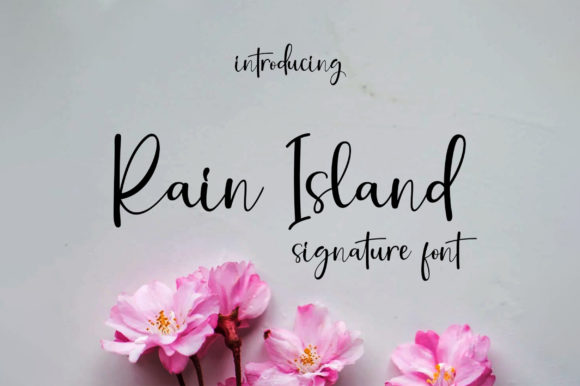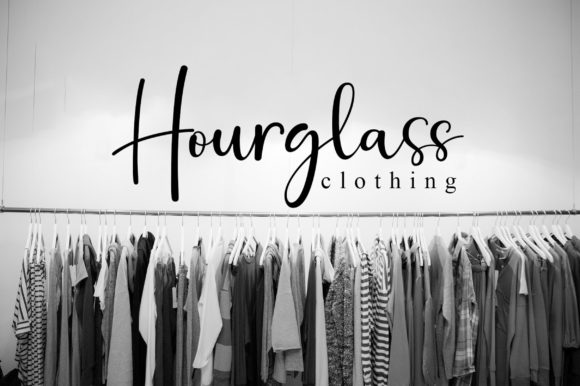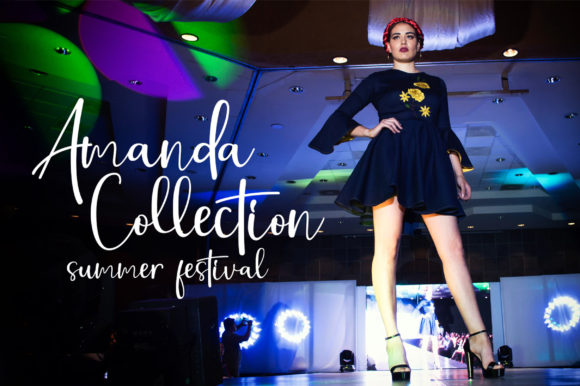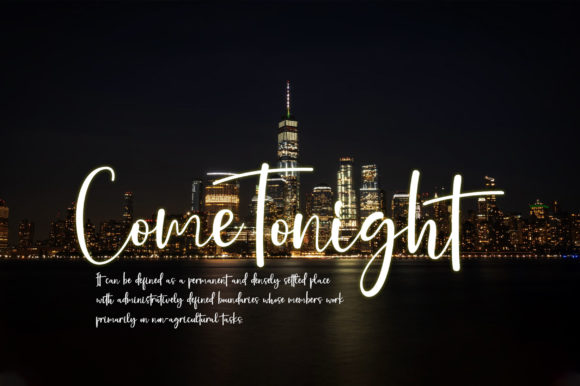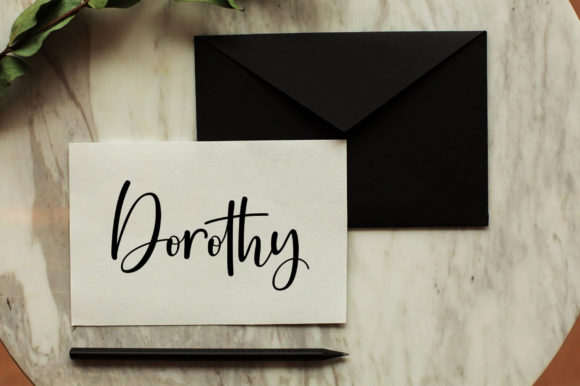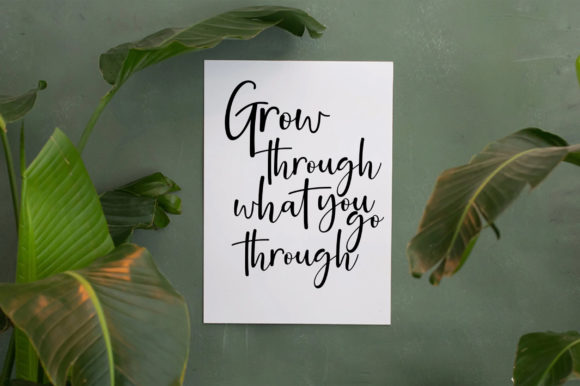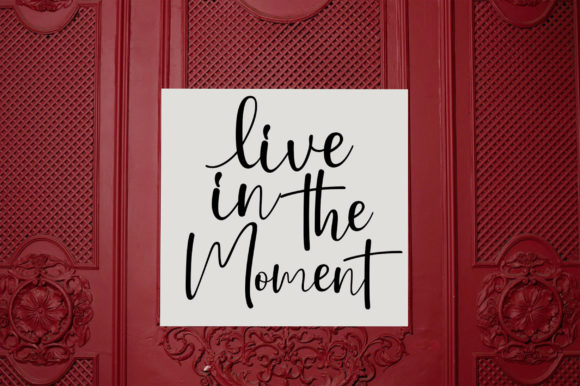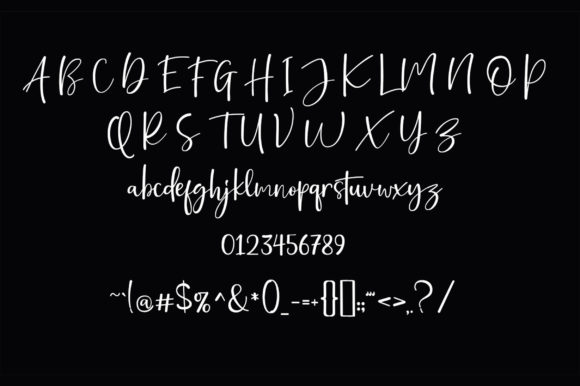
Rain Island Font
About Rain Island Font
“Rain Island” is a lovely and timeless signature font that captures the essence of elegance and sophistication. Its beautifully crafted letterforms emulate the fluid strokes of a handwritten signature, adding a touch of personalization and authenticity to your designs.
This font is the perfect choice for creating eye-catching logos that leave a lasting impression. The unique and beautiful touch of each letter in “Rain Island” adds a sense of elegance and professionalism to your branding materials. Whether you’re designing for a luxury brand, a boutique, or a personal brand, this font will make your logo stand out with its timeless appeal.
In addition to logos, “Rain Island” is also well-suited for creating stunning branding materials. Whether it’s business cards, letterheads, or packaging, this font adds a touch of sophistication and refinement to your brand identity. Its timeless style ensures that your brand will make a lasting impression on your audience.
Quotes and inspirational messages can also benefit from the beauty of “Rain Island”. The unique and elegant touch of each letter makes your quotes visually appealing and engaging. Whether you’re creating social media graphics, posters, or prints, this font will bring your words to life and captivate your audience.
“Rain Island” can be used in a wide range of design projects, including stationery, invitations, and personalized gifts. Its timeless signature style adds a sense of grace and charm to your designs, making them memorable and impactful.
In summary, “Rain Island” is a lovely and timeless signature font that enhances the visual appeal of your designs. With its unique and beautiful letterforms, it is the perfect choice for eye-catching logos, branding materials, quotes, and various other design projects. Embrace the elegance and sophistication of “Rain Island” and watch as your designs come alive with its timeless charm.